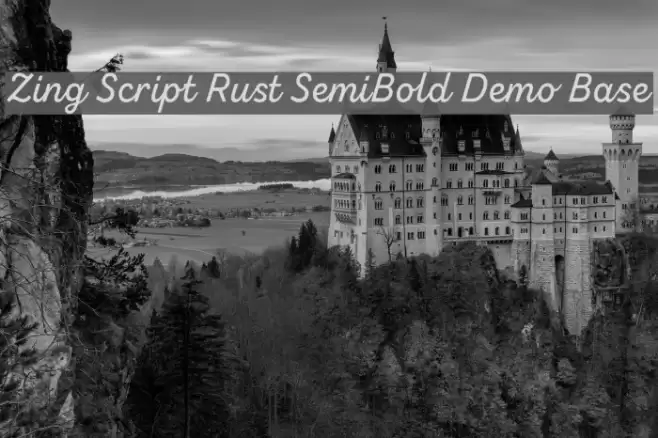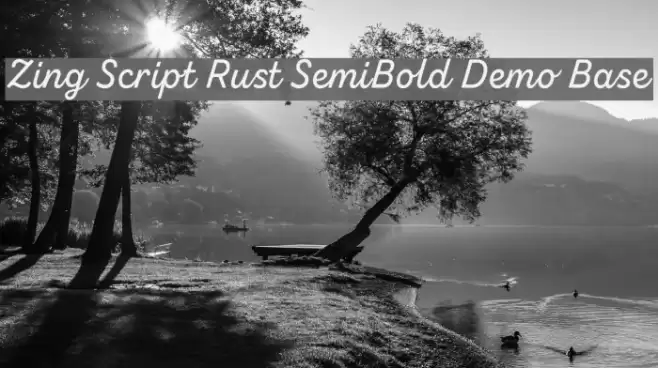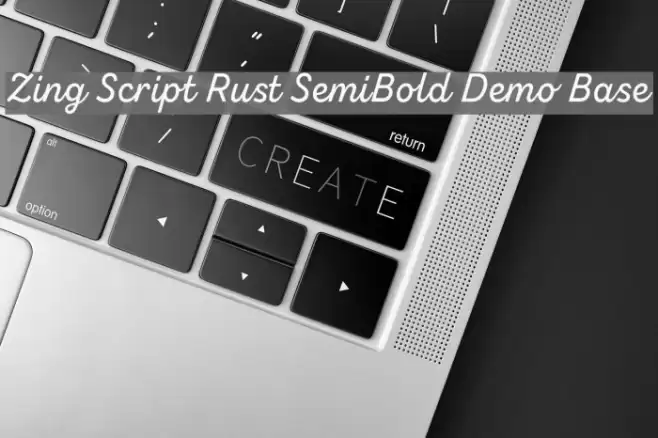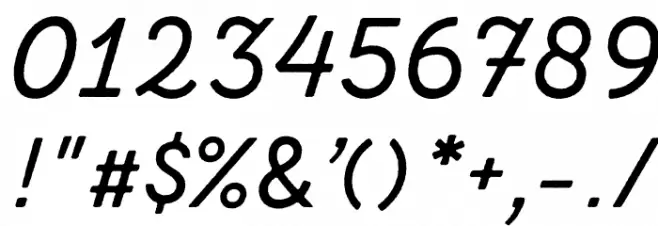
Zing Script Rust SemiBold Demo Base Font
Zing Script Rust SemiBold Demo Base Description
This font features a dynamic and flowing script style, characterized by its semi-bold weight and slightly slanted letters. The uppercase letters maintain a consistent height, while the lowercase letters exhibit a charming cursive flair, enhancing its handwritten appeal. The numerals are clear and legible, matching the overall style of the alphabet. Special characters are well-integrated, maintaining the font's cohesive appearance. The strokes are smooth and slightly rounded, contributing to a friendly and approachable look. This font is versatile, suitable for both digital and print media, offering a modern yet personal touch to any design.
A semi-bold, slanted script font with a modern, handwritten style from Uncategorized fonts.